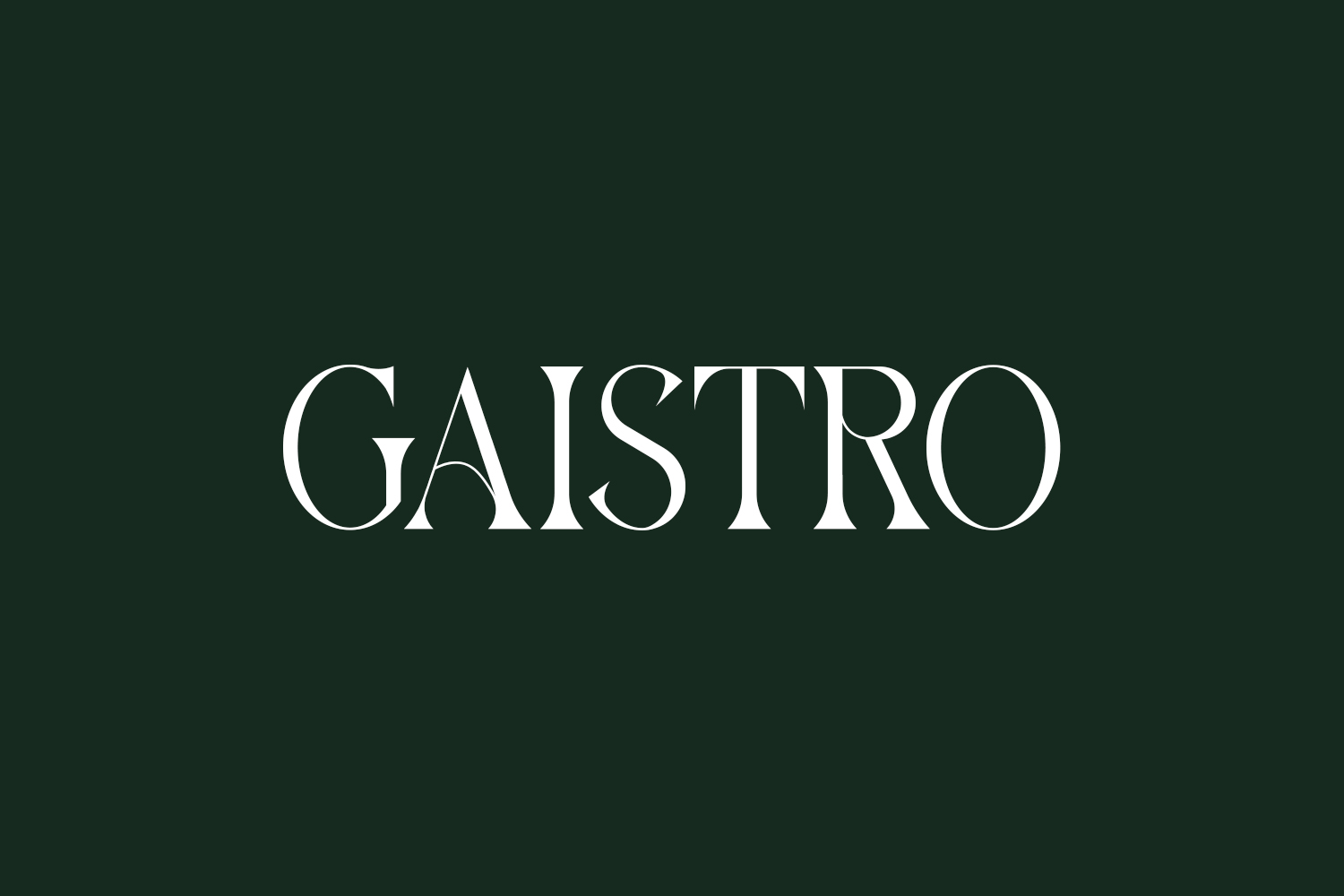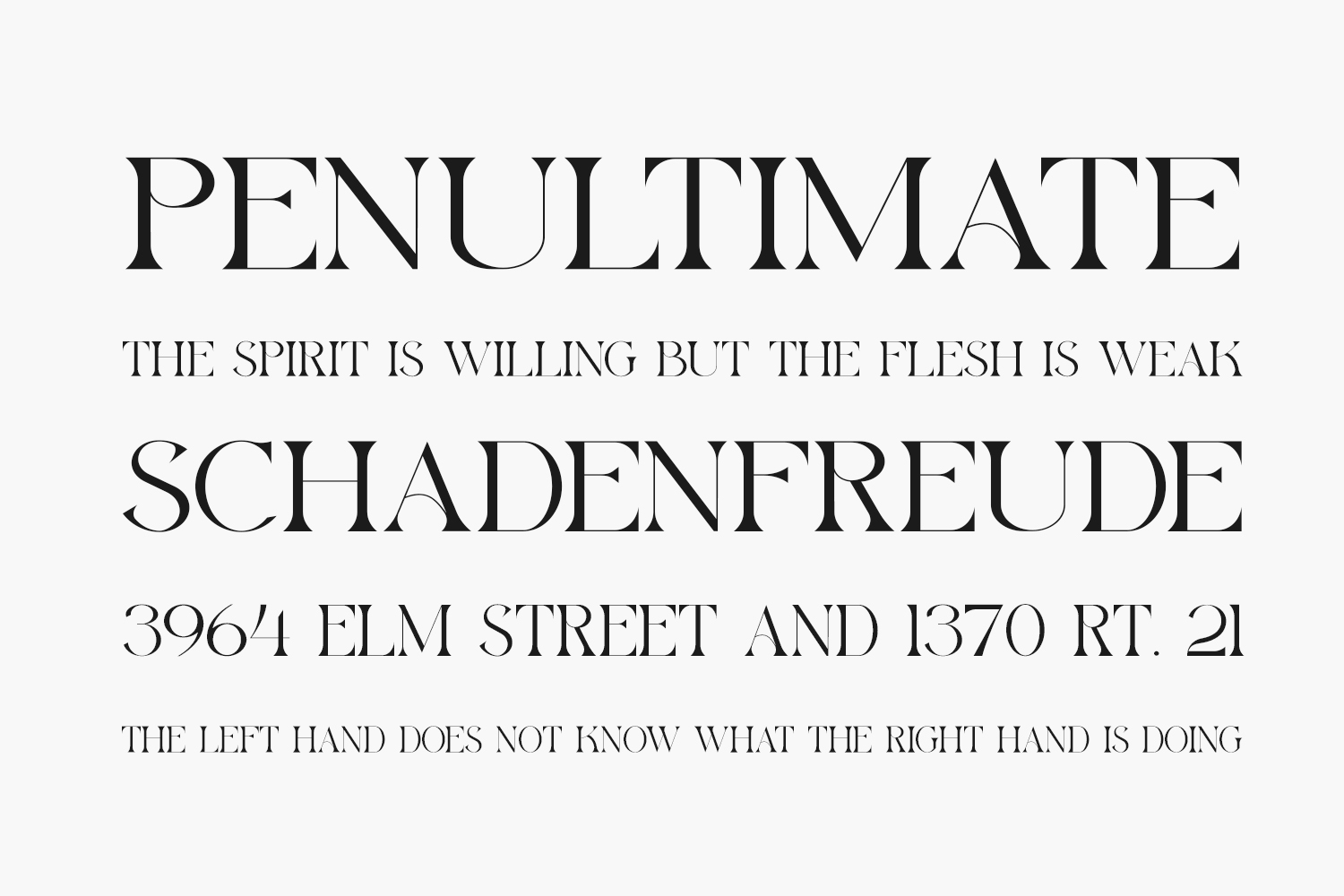
Discover Gaistro Free Font, a chic serif font boasting a contemporary flair and distinctive aesthetic. Ideal for creating sophisticated and luxurious designs, this typeface is perfect for logos, book or movie titles, fashion brands, magazines, clothing, fonts, quotes, and various other applications. Gaistro Free Font is free for personal use only. Please purchase the full version for commercial use.
Designed by Maryamtype Studio